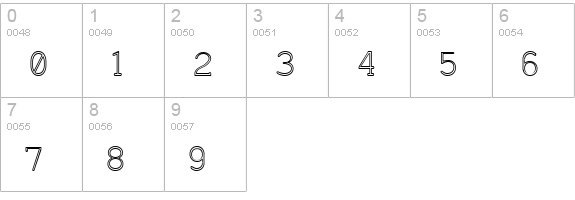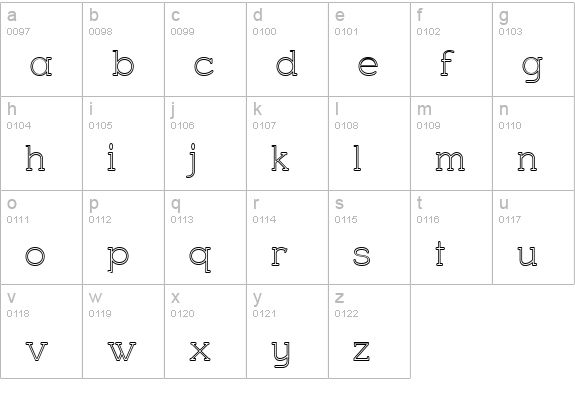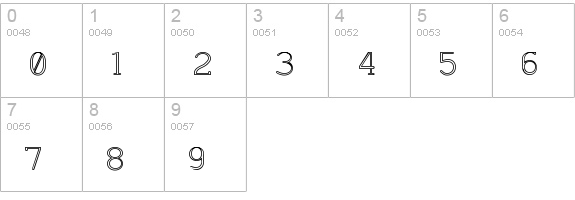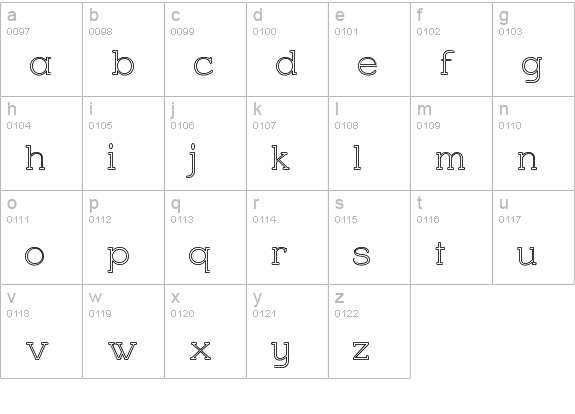
Charrington Outer font is a bold and stylish typeface that exudes a sense of strength and sophistication. With its unique design elements and sharp edges, this font is perfect for making a statement in any design project. The free Charrington Outer font is freely available to download at FontsMarket.com, making it accessible to designers looking to add a touch of elegance to their work. Whether you're creating a logo, poster, or website, Charrington Outer font is sure to make a lasting impression with its modern and eye-catching appearance. Elevate your designs with this versatile font today!